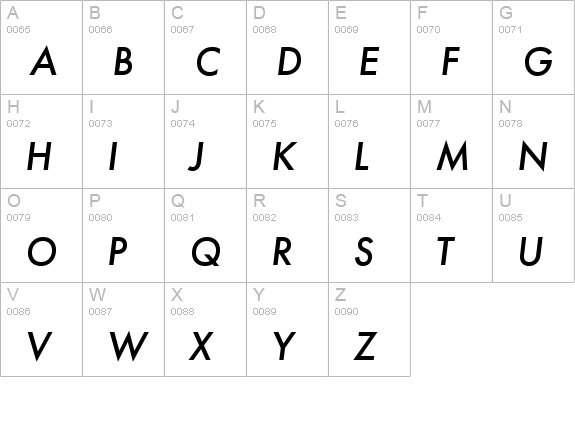
PT FuturaFuturis Medium Italic Cyrillic is a balanced, medium-weight, italic variant in the PT typeface family \xE2\x80\x94 well suited to sub-headlines, navigation, and balanced editorial work.
PT FuturaFuturis Medium Italic Cyrillic font is a sleek and modern typeface that exudes sophistication and elegance. Its italic style adds a touch of flair to any design, making it perfect for projects that require a contemporary and stylish look. With its clean lines and balanced proportions, this font is versatile and can be used for a wide range of design applications. The best part is that PT FuturaFuturis Medium Italic Cyrillic font is available for free download at FontsMarket.com. Whether you're working on a branding project, website design, or any other creative endeavor, this font is a fantastic choice that will elevate your work to the next level. Don't miss out on the opportunity to add this stunning font to your collection for free!